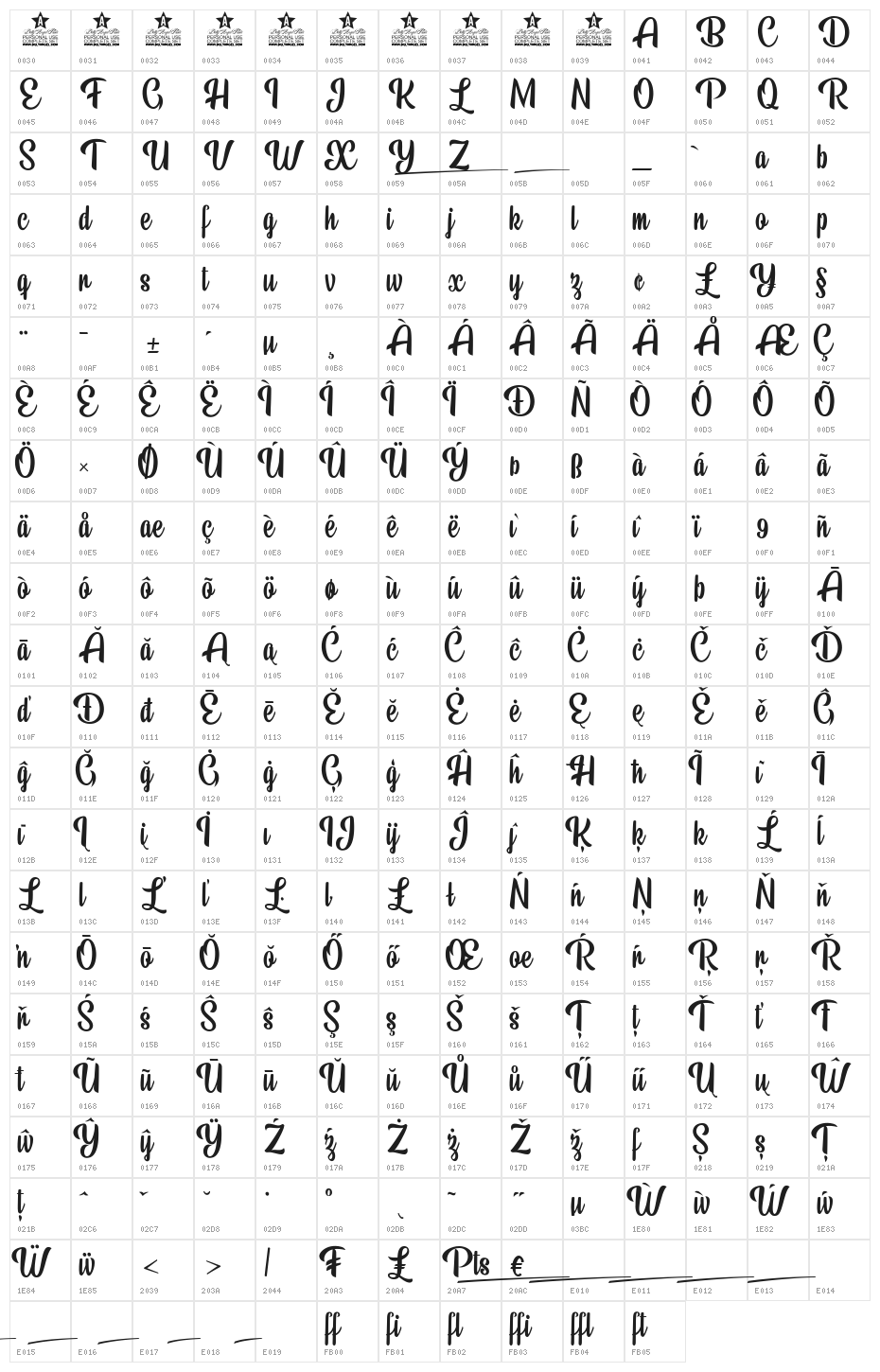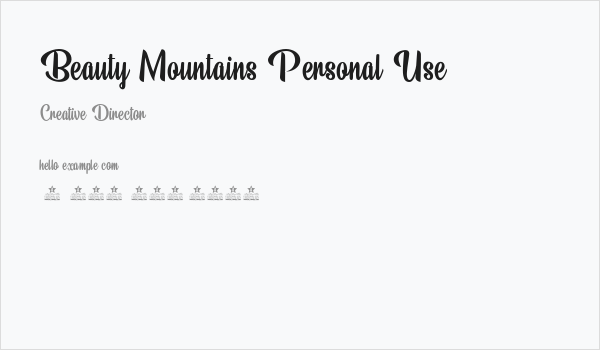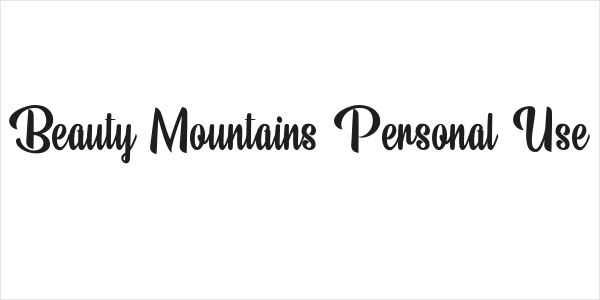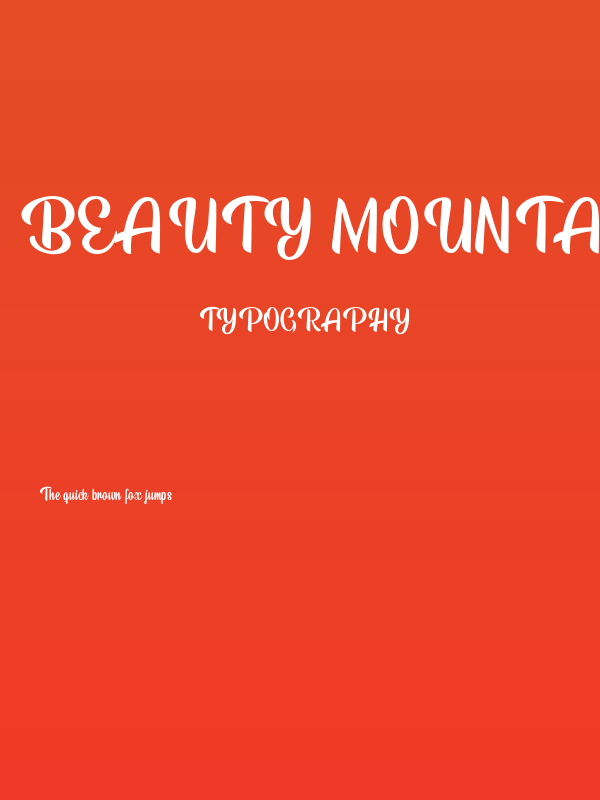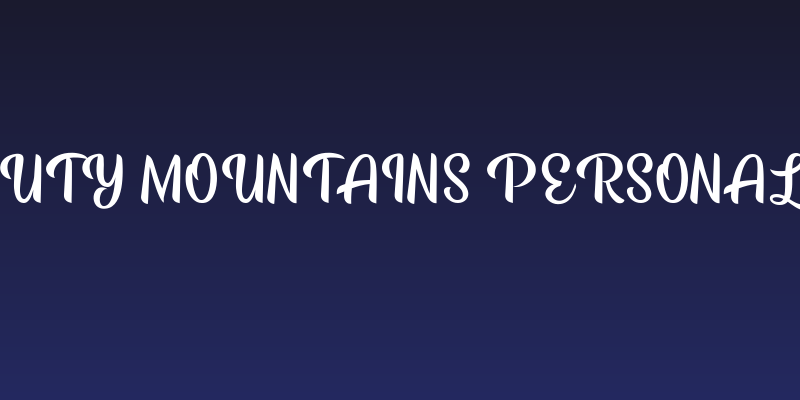
Beauty Mountains Personal Use Font
Beauty Mountains Personal Use Description
This font features a bold and flowing script style, characterized by its smooth, cursive strokes and elegant curves. The uppercase letters are ornate, with a distinct flair that adds a touch of sophistication. The lowercase letters maintain a consistent flow, enhancing readability while retaining a stylish appearance. The numbers and special characters are crafted with the same attention to detail, ensuring a cohesive look across all elements. This font's design is both modern and timeless, making it suitable for a variety of creative applications.
| Proposed Projects | Ideal for wedding invitations, branding, logo design, and elegant stationery. |